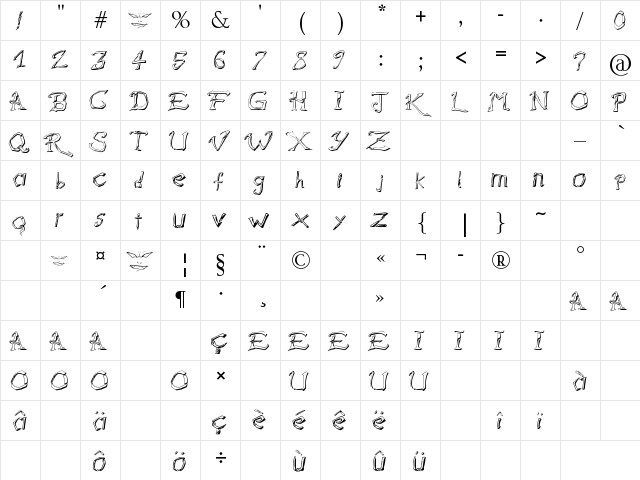
Raslani Destroyedd Souls Regular
Design Context for Raslani Destroyedd Souls Typeface
Raslani Destroyedd Souls is a composed and adaptable typeface that performs quietly and consistently across a wide range of design contexts.
Pro Tip: Use Raslani Destroyedd Souls in both headline and body roles to test its range before committing to a single application.